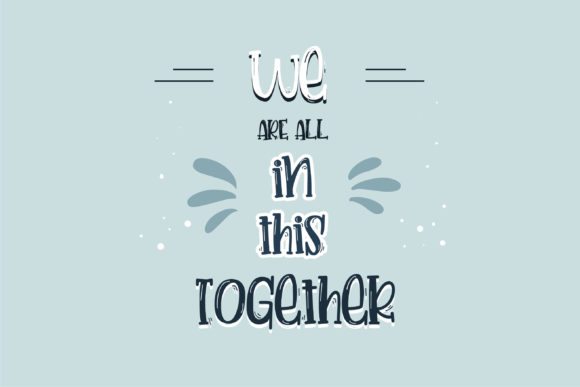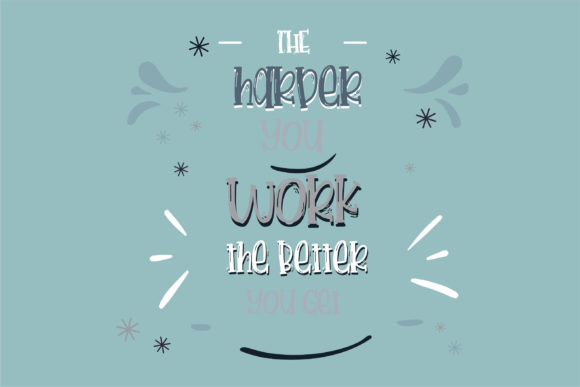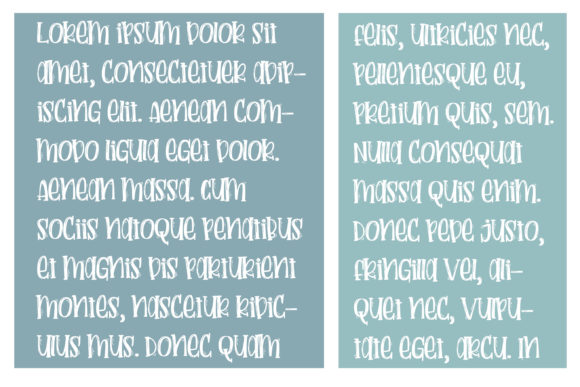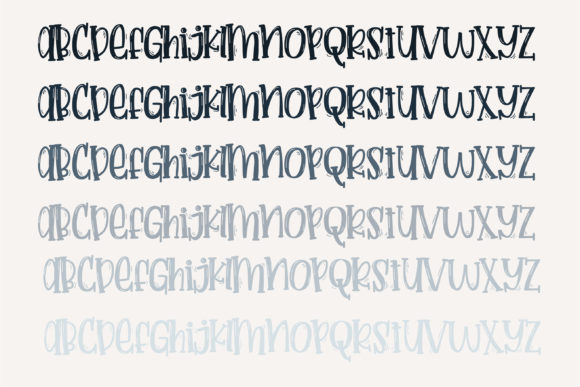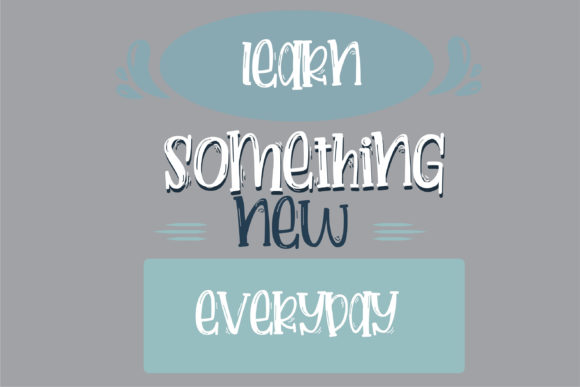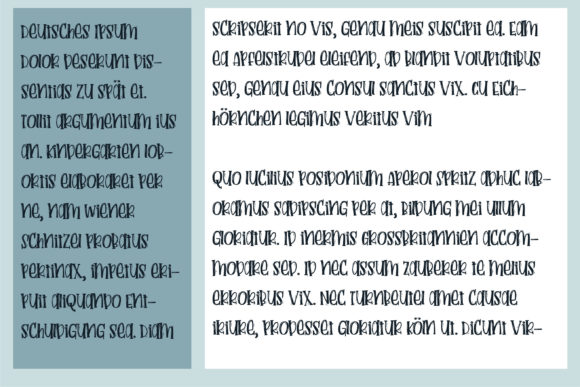
Introduction to Pocketbook Dance Font
Have you ever found yourself lost in a sea of design inspiration, only to stumble upon that one perfect font that brings your creative project to life? For me, that moment happened when I discovered the whimsical Pocketbook Dance Font. Its playful serifs and adorable jiggle marks had me hooked from the very start.
As a designer, you understand the value of having access to high-quality design resources that can elevate your work. The Pocketbook Dance Font is one such treasure, offering a free download that’s perfect for adding a touch of personality to your designs. With its transparent background, this versatile font is ideal for a wide range of creative projects, from digital art to print materials.
Whether you’re working on a personal project or a professional design brief, the Pocketbook Dance Font is sure to bring a smile to your face and a dash of fun to your work. In this article, we’ll delve into the world of this charming font and explore its many uses, making it a valuable addition to your design arsenal.
- Unique, hand-crafted design, featuring a playful and whimsical feel that’s perfect for adding a touch of personality to any creative project.
What works well: ✨ The Pocketbook Dance Font is a beautiful, playful font that adds a touch of whimsy to any design project. It’s perfect for creating eye-catching titles, headings, and even entire branding identities. I love how versatile it is – it can be used for a wide range of creative projects, from children’s books to advertising campaigns.
Limitations: ⚠️ While the Pocketbook Dance Font is a great addition to any design library, it’s not ideal for formal or professional projects that require a more serious tone. It’s also worth noting that the font is a bit more challenging to read at smaller font sizes, so be sure to test it out at various sizes before using it in your design.
Overall, I’m really impressed with the Pocketbook Dance Font, and I think it’s a great resource for designers looking to add some creativity and flair to their projects. Whether you’re working on a children’s book or a fun advertising campaign, this font is sure to delight.
- Playful and whimsical style